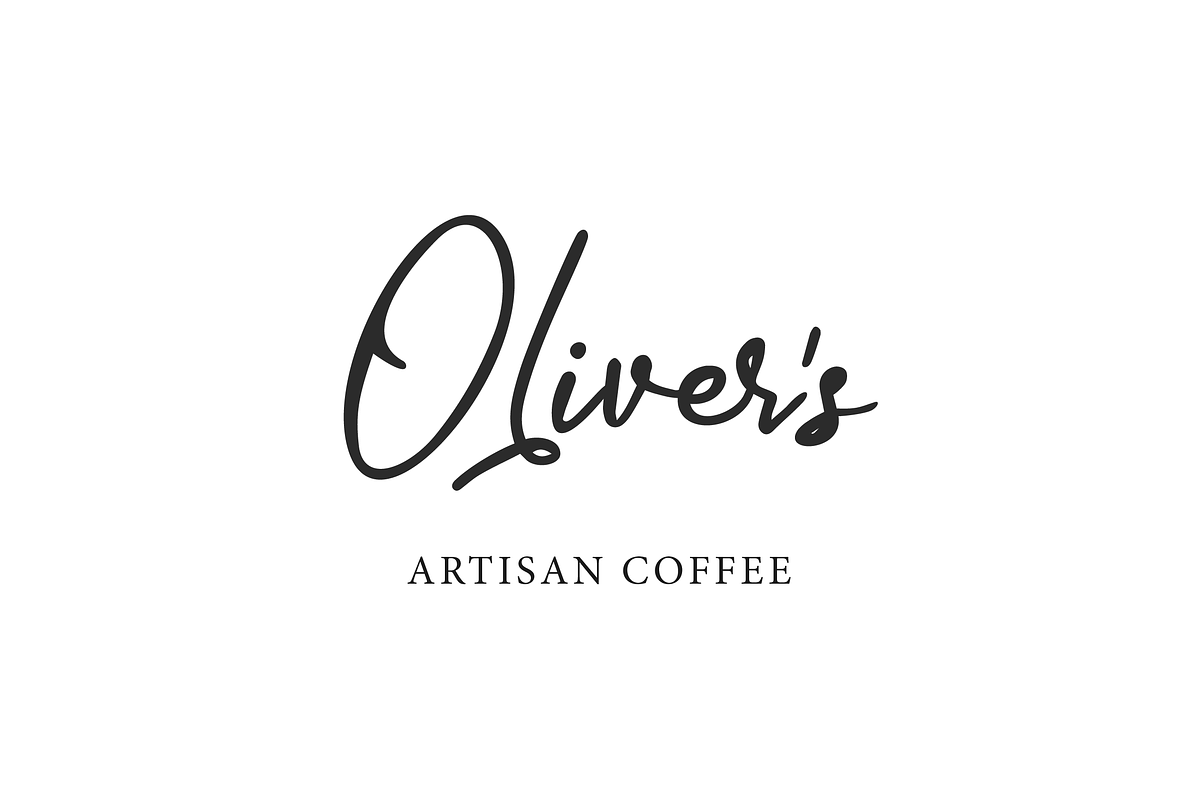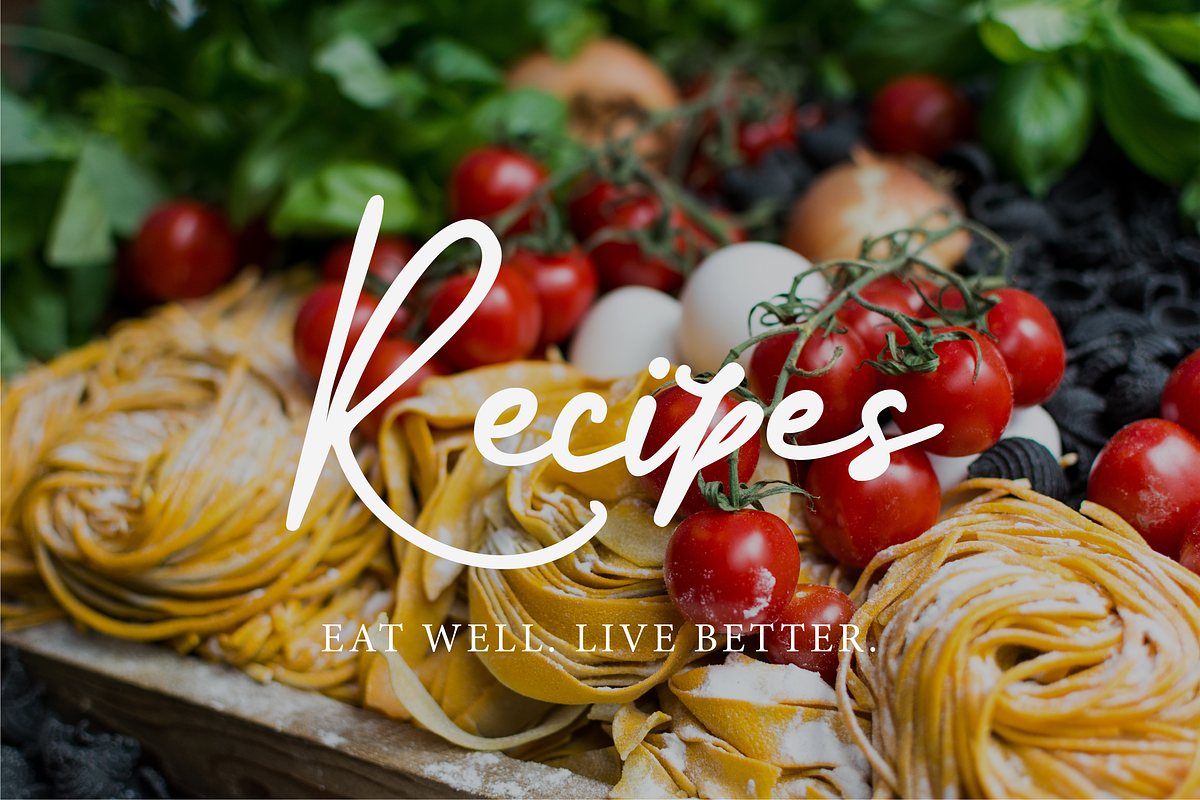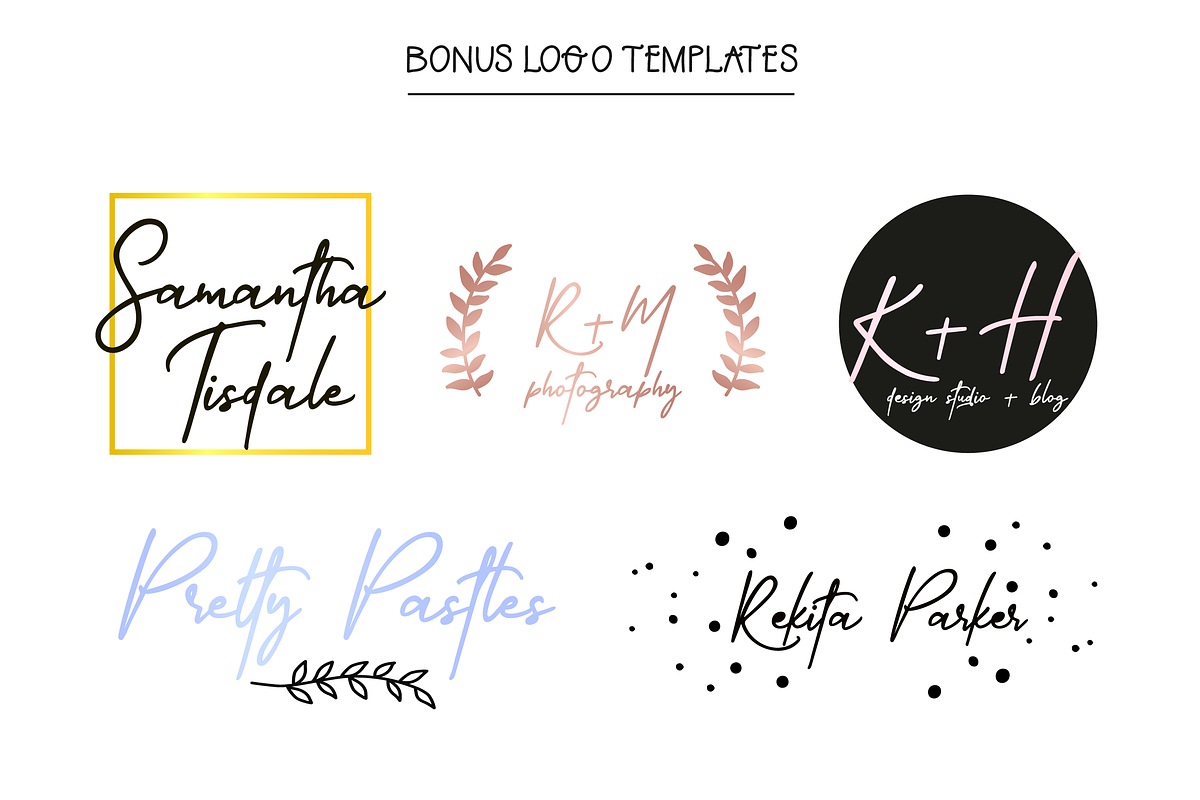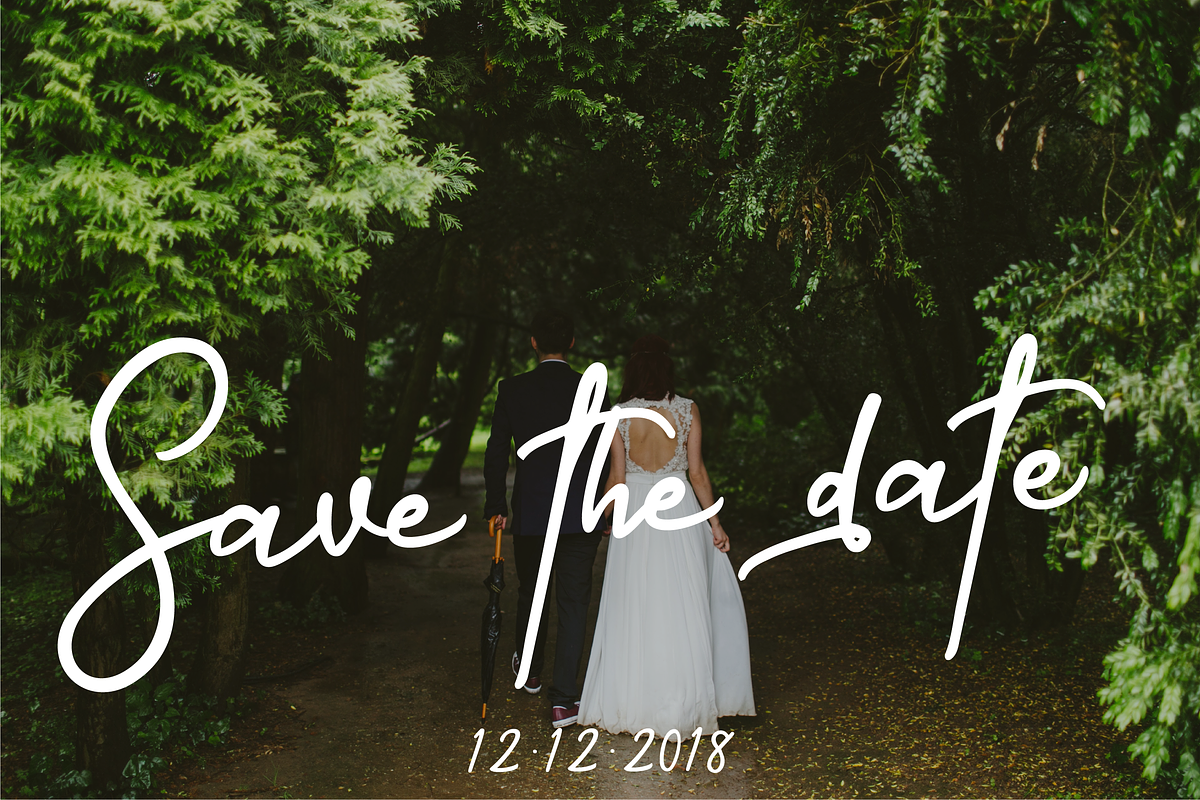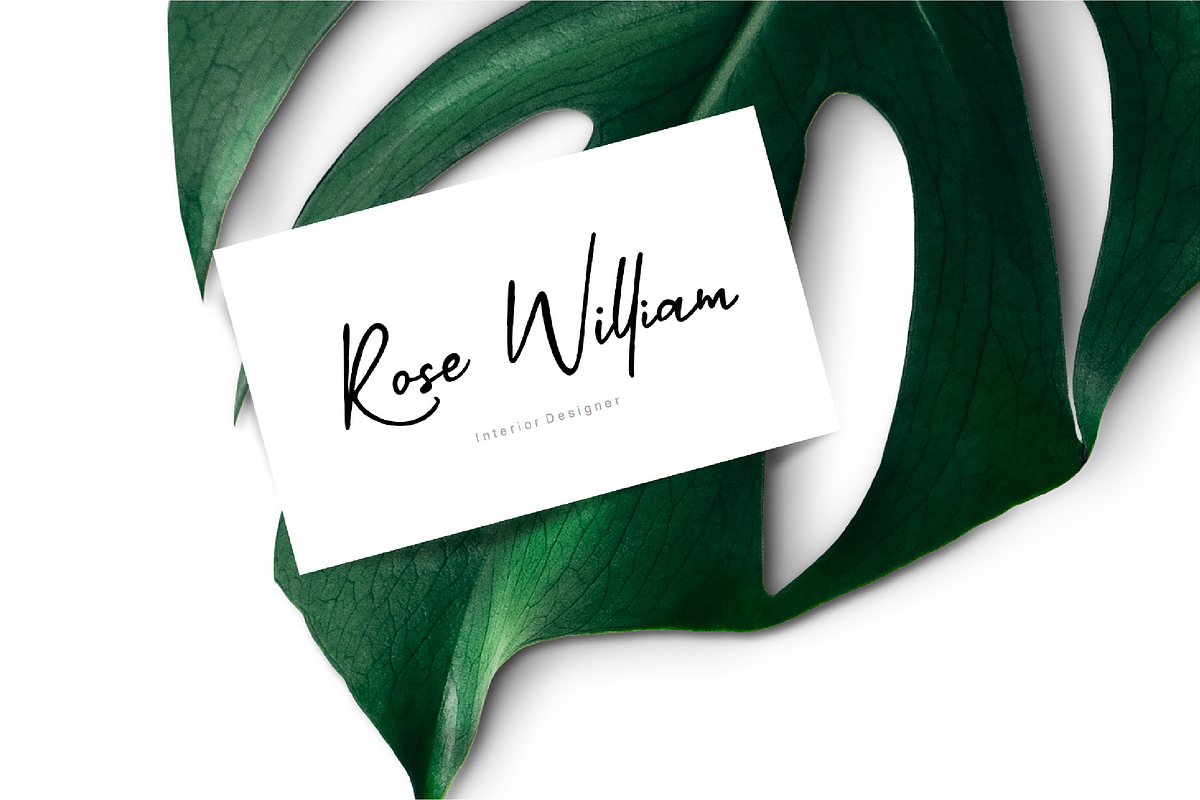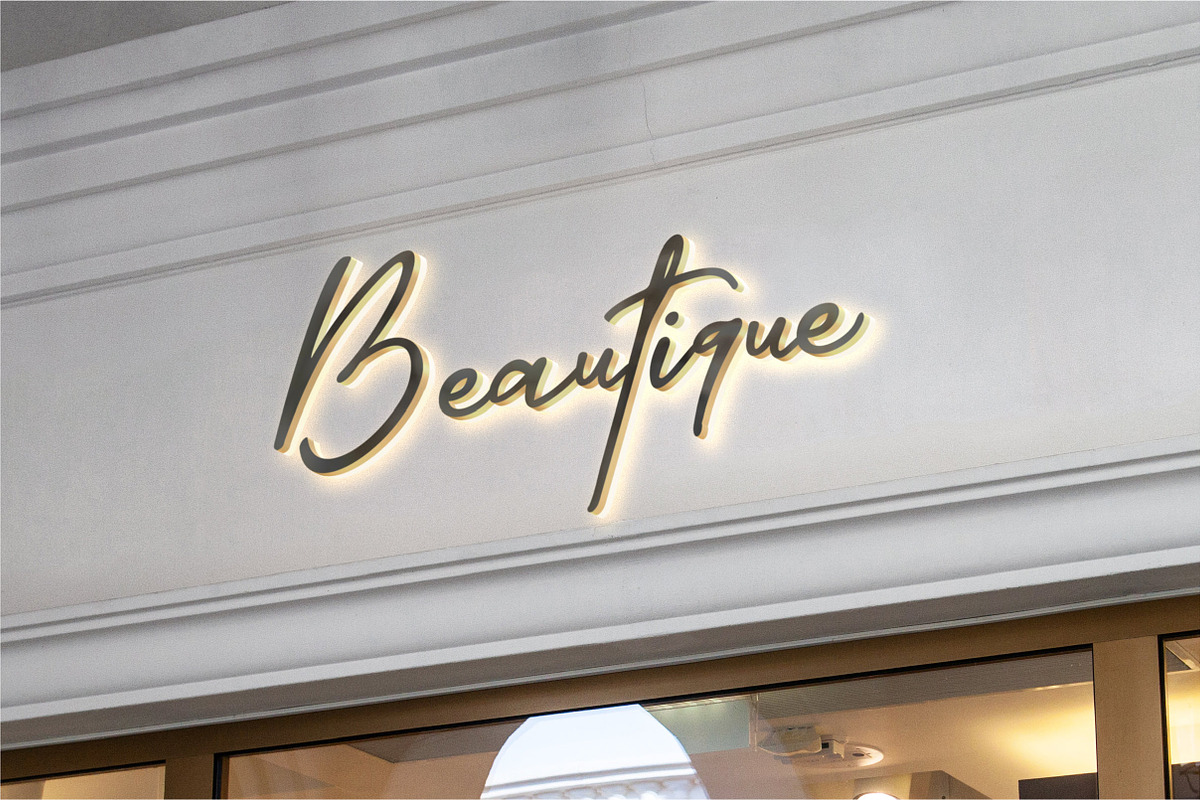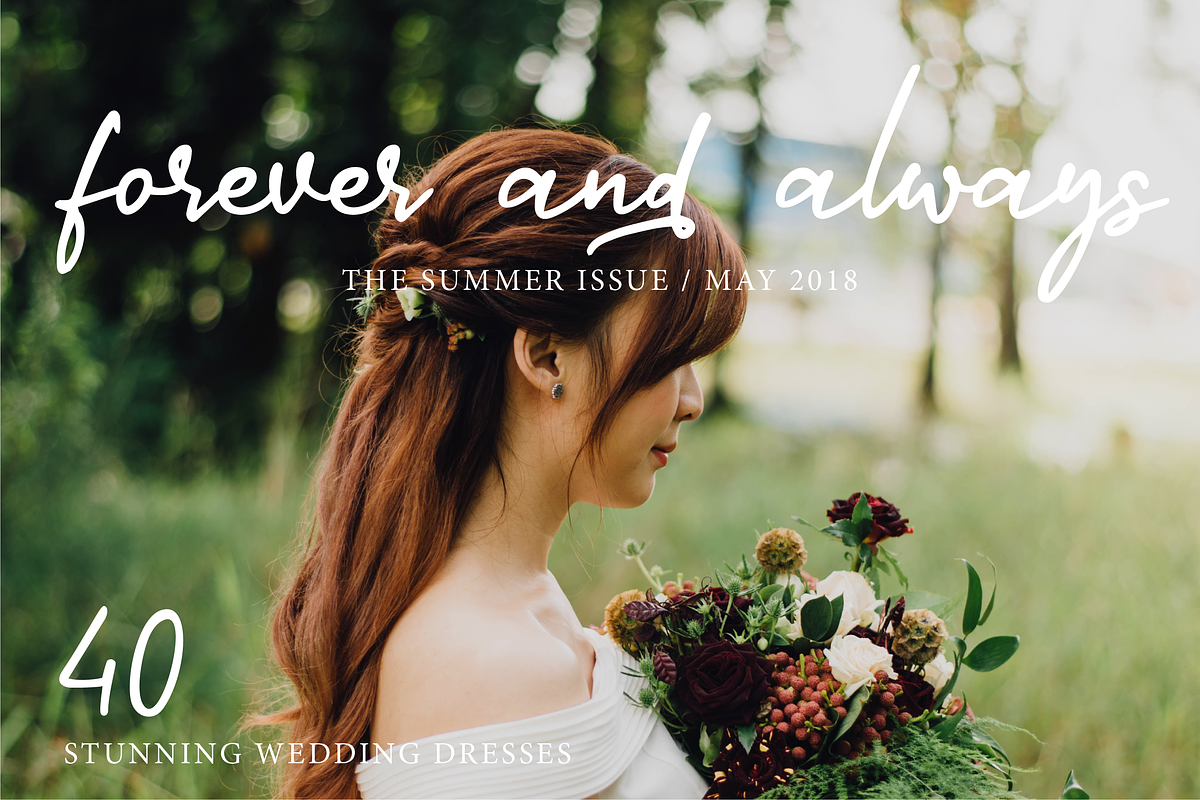
Crystal Castle Font + Logos
Crystal Castle is a handwriting font that comes with two sets of alternates to make your designs authentic and fun! A casual signature script font, Crystal Castle is ideal for all design projects ranging from branding like business cards and logos to packaging to personal projects, greeting cards, photo overlays, and so much more!
Crystal Castle - a fun script font with two sets of alternates that can be accessed using the Glyphs panel.